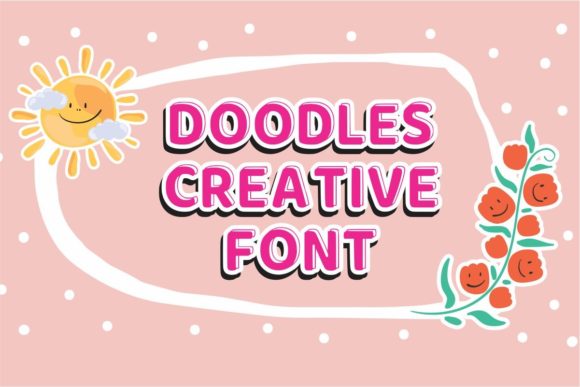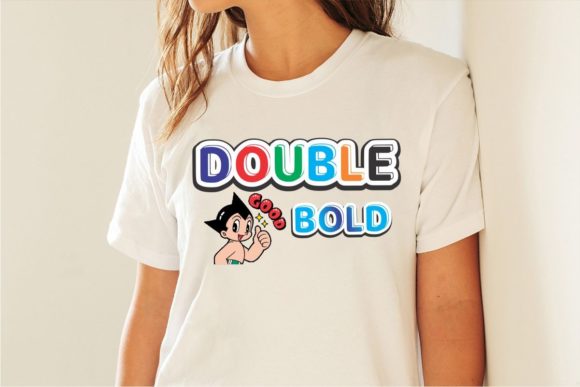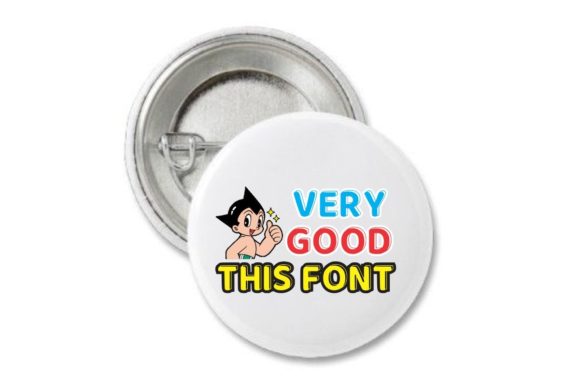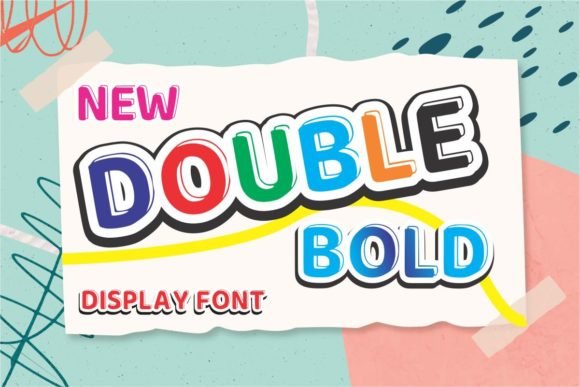
Introduction to Double Bold Font
Double Bold is a shading and cool looking display font.
This font is so fun, friendly, and cute It will add a cool and friendly fun touch to any of your projects.
Key Features of Double Bold Font